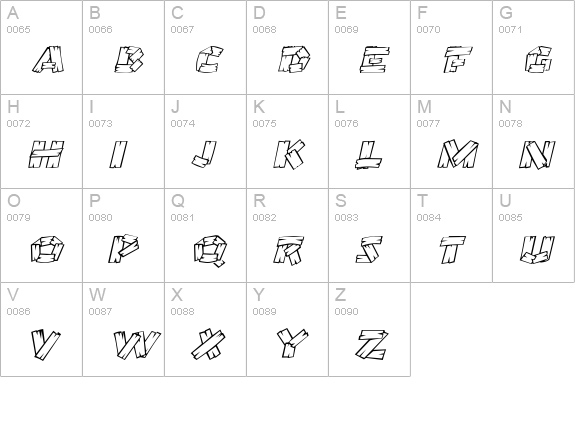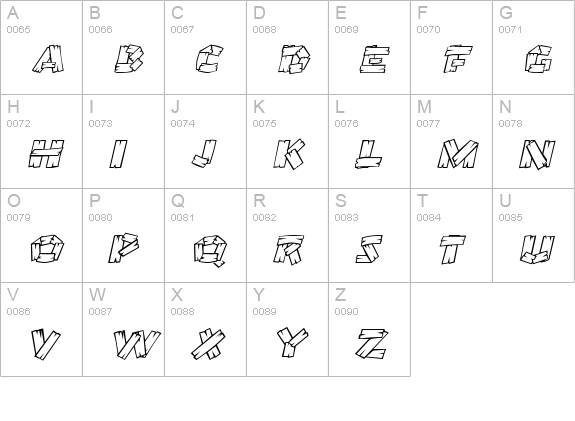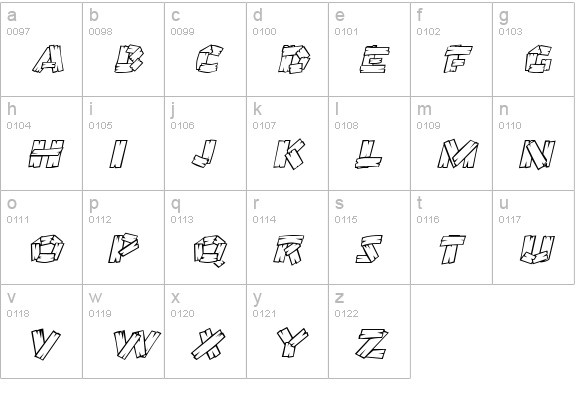
OutHouseDisplayCaps Italic is a distinctive, italic variant in the OutHouseDisplayCaps typeface family \xE2\x80\x94 well suited to design and typography projects.
OutHouseDisplayCaps Italic font is a bold and striking typeface that exudes a sense of creativity and uniqueness. Its slanted letterforms give it a modern and stylish look, making it perfect for headlines, logos, and other design projects that require a strong visual impact. The sharp angles and intricate details of this font make it stand out from the crowd, adding a touch of sophistication to any design. Best of all, OutHouseDisplayCaps Italic font is available for free download at FontsMarket.com. This means that you can easily access this high-quality font without any cost, making it a valuable addition to your font collection. Whether you're a designer looking for a new typeface to enhance your projects or a creative individual in search of a distinctive font for personal use, OutHouseDisplayCaps Italic font is a fantastic choice that won't break the bank. Download it today and let your creativity shine with this exceptional typeface.